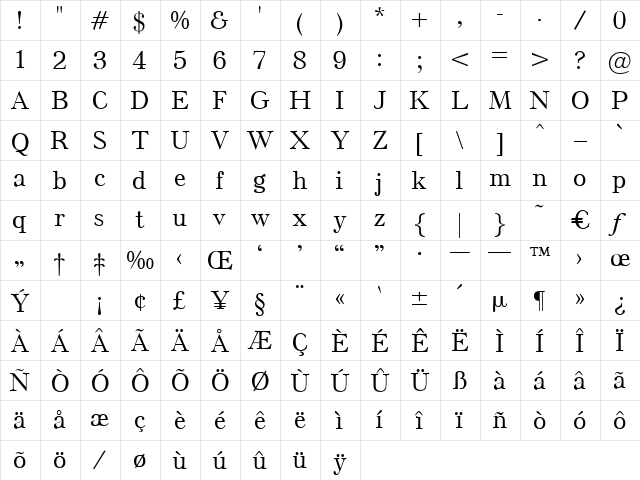
Westend Regular
Design Context for Westend
Westend is a composed and adaptable typeface that performs quietly and consistently across a wide range of design contexts.